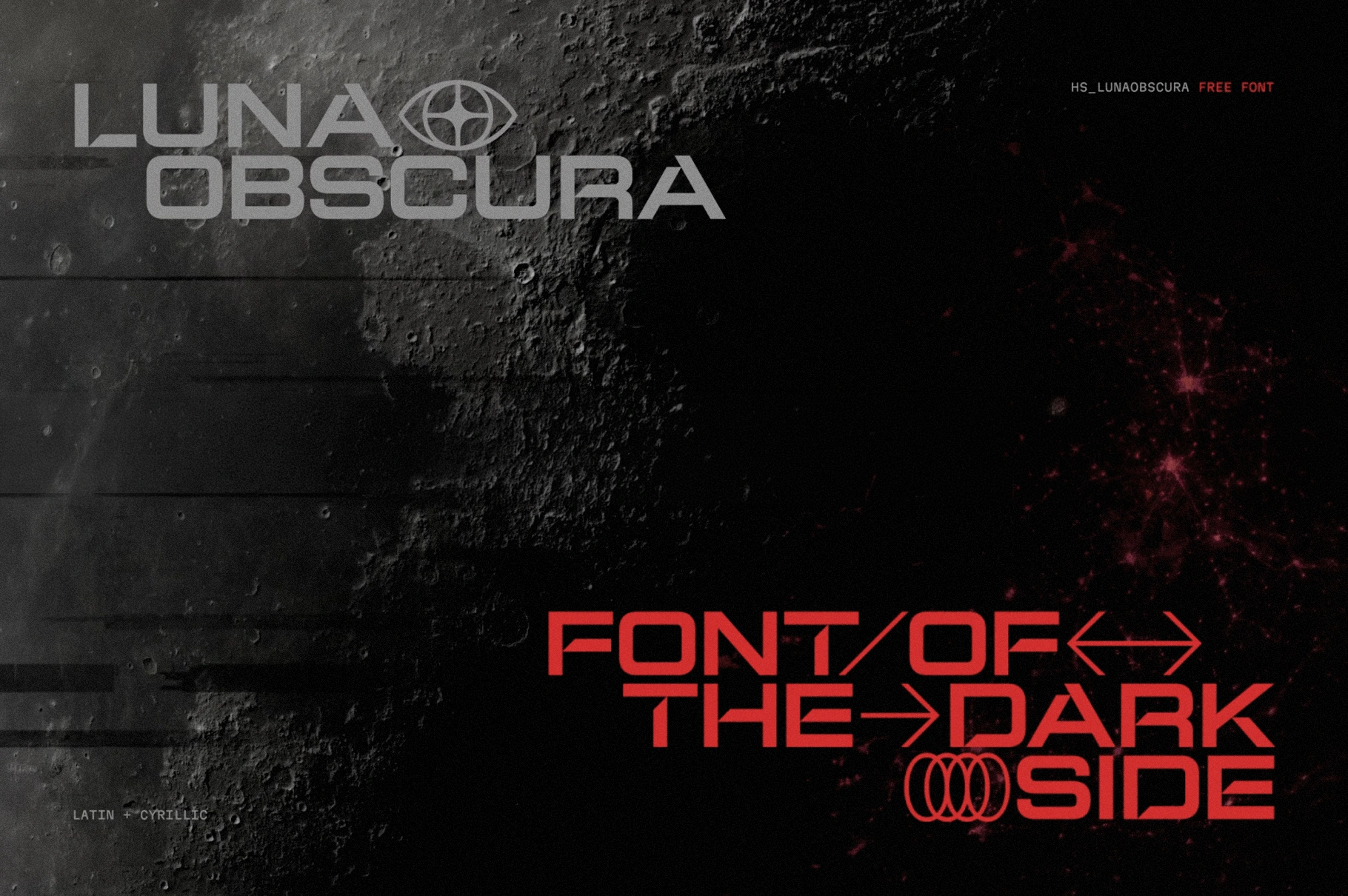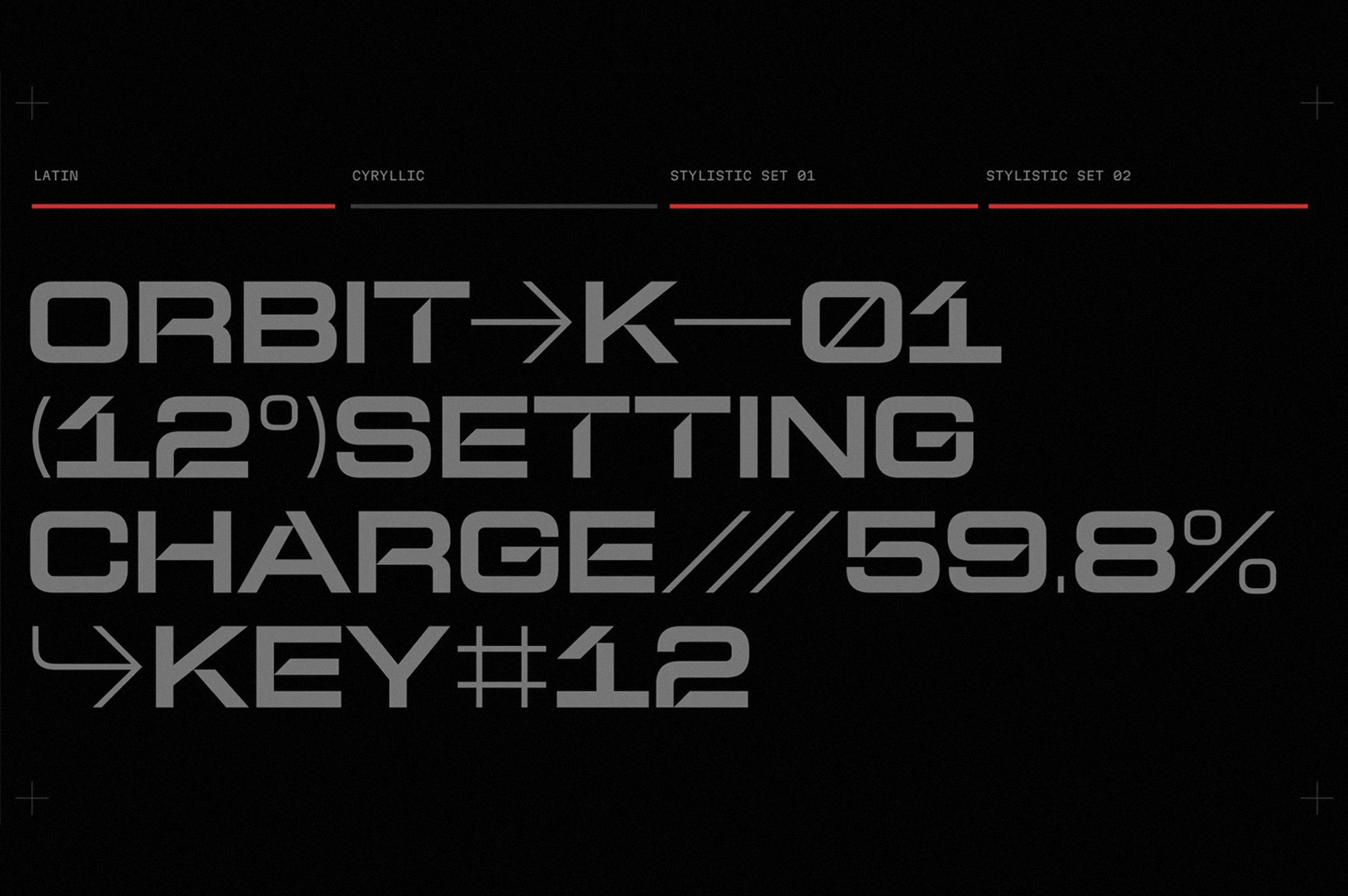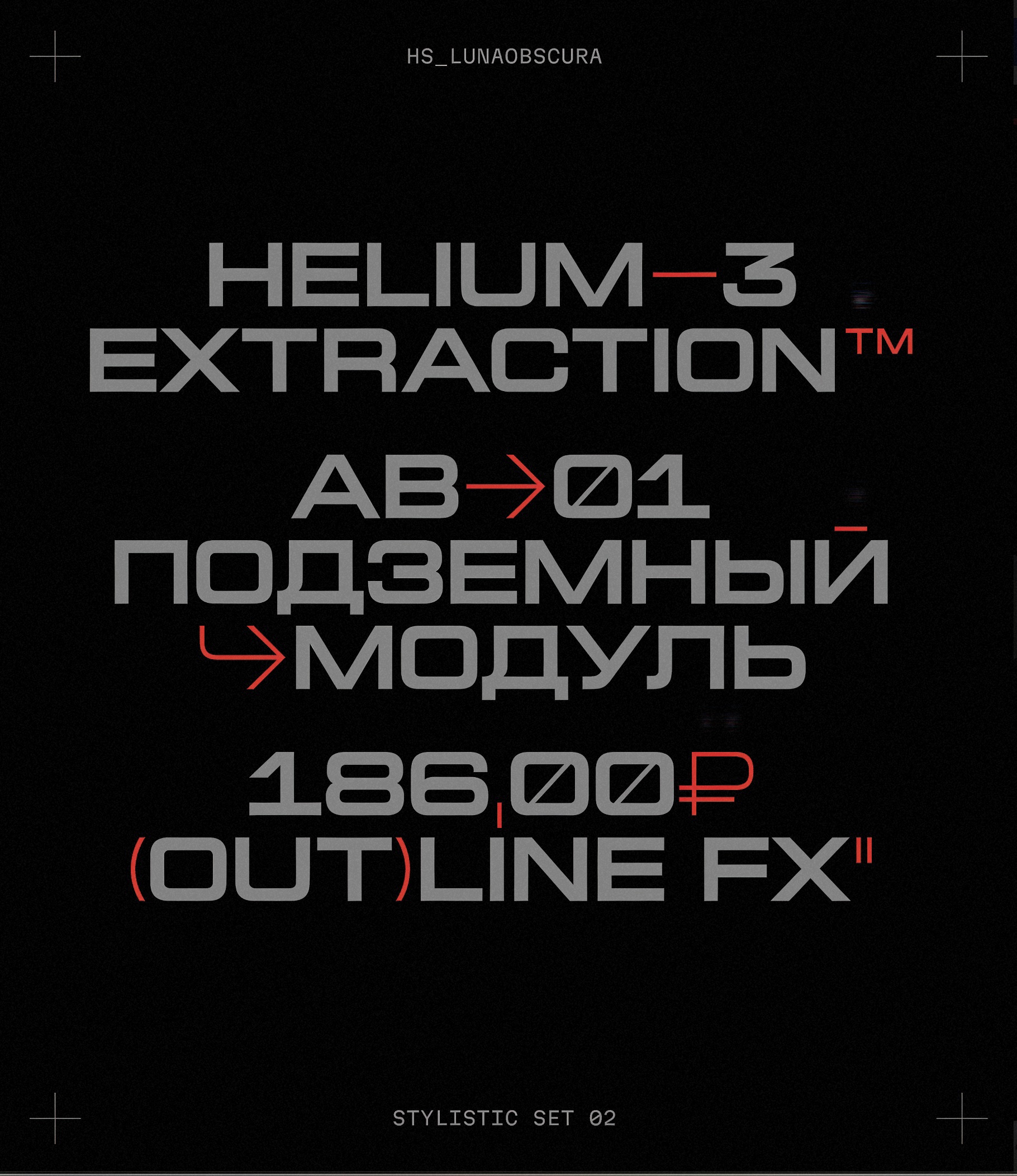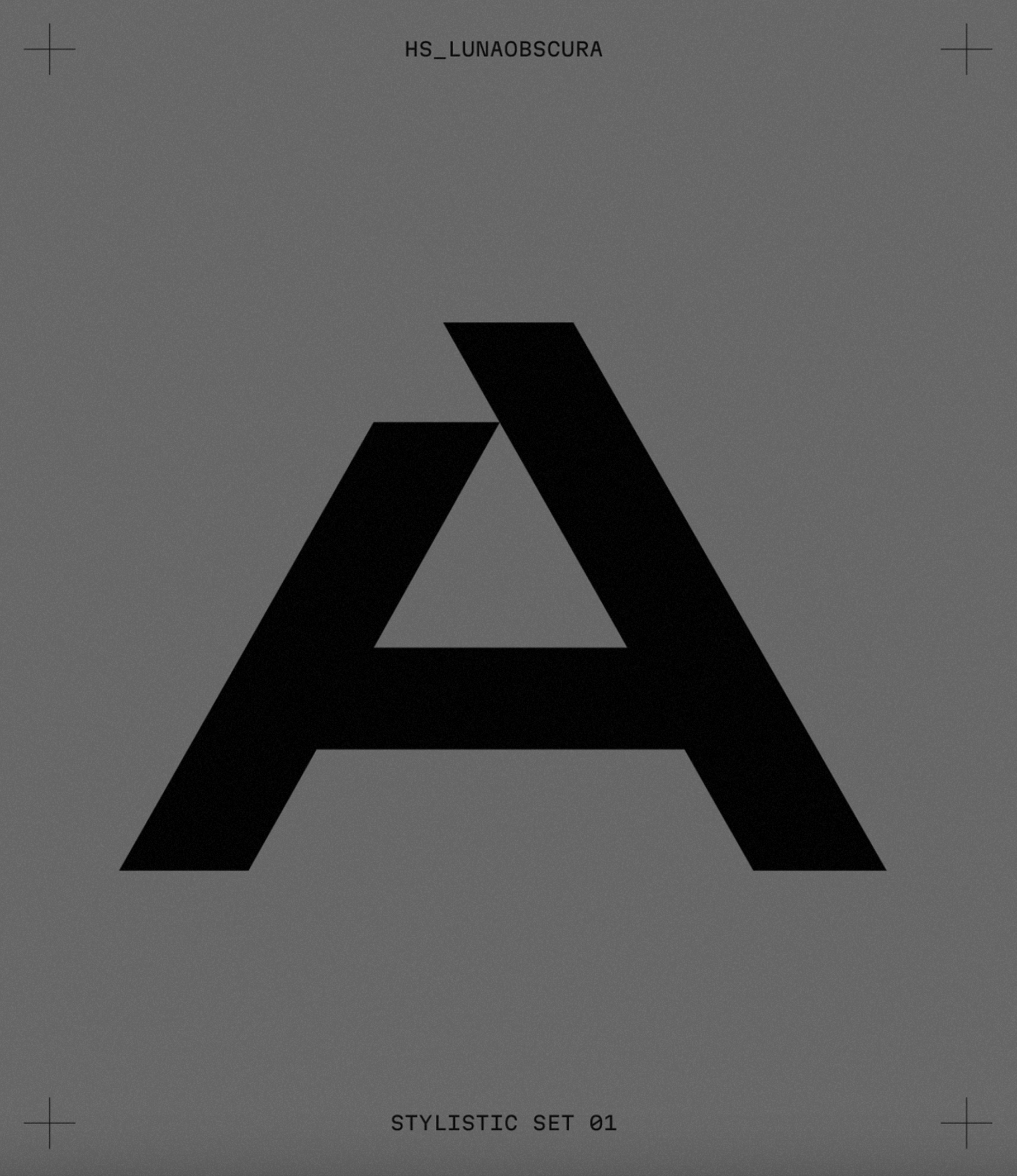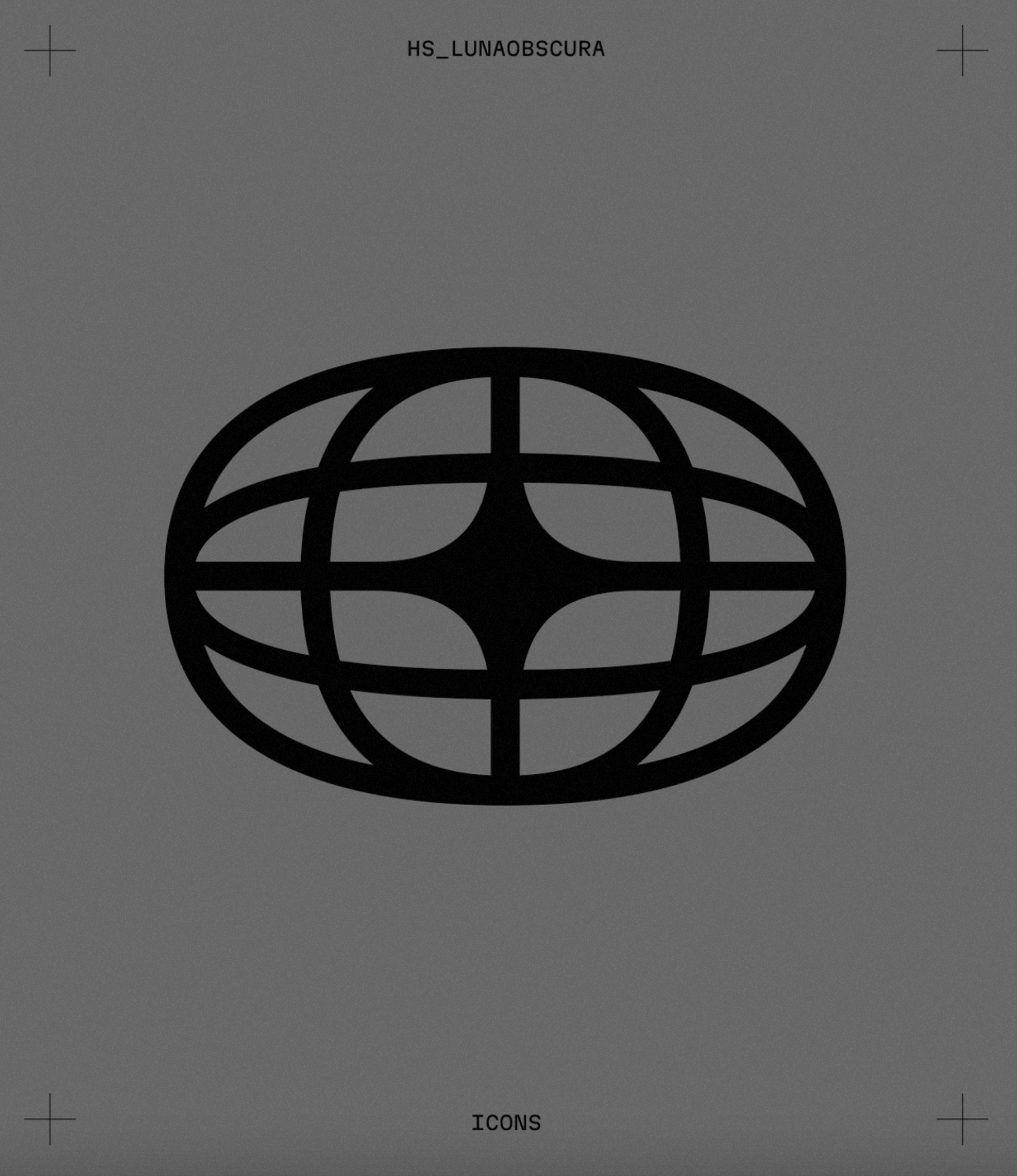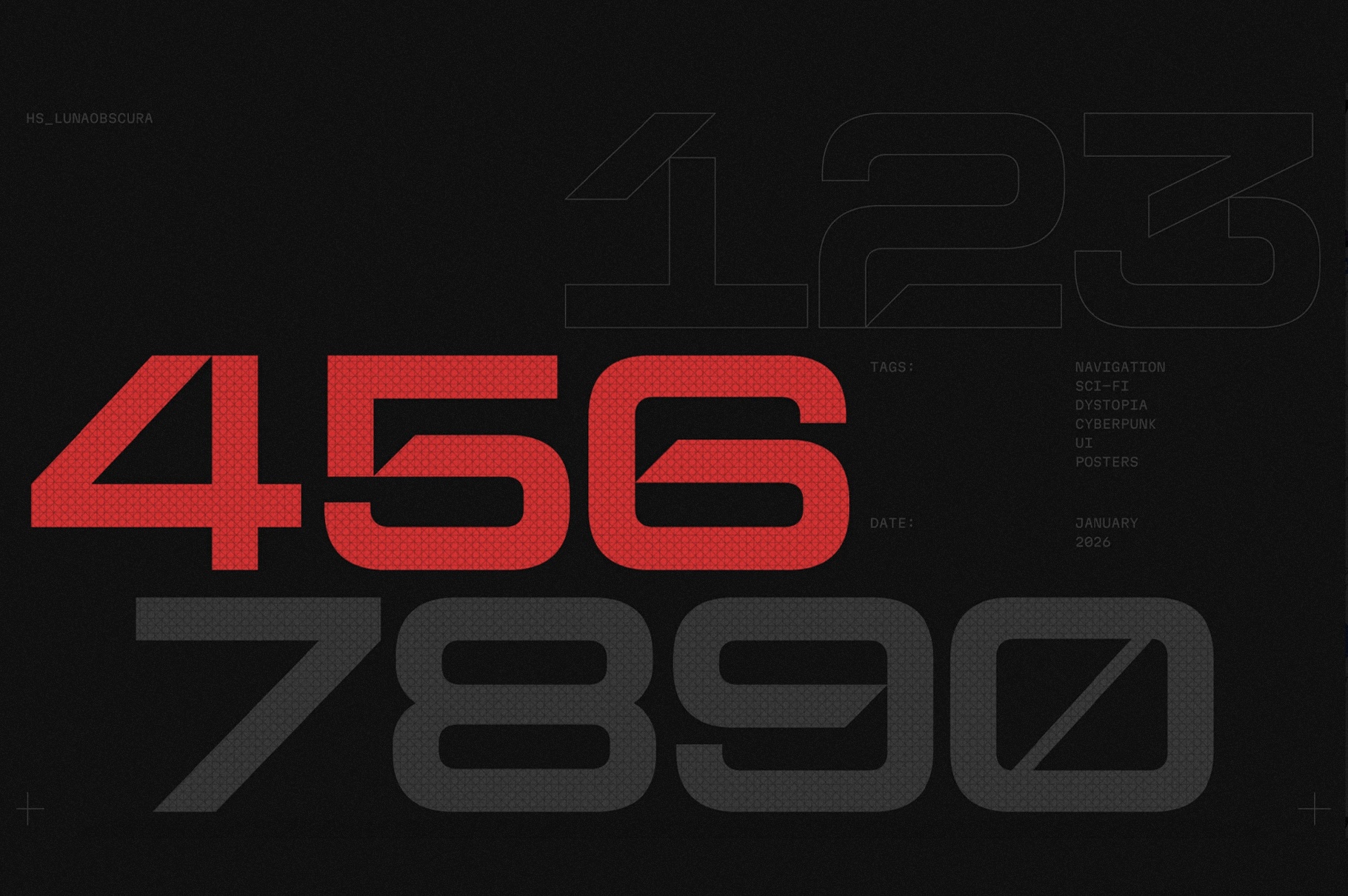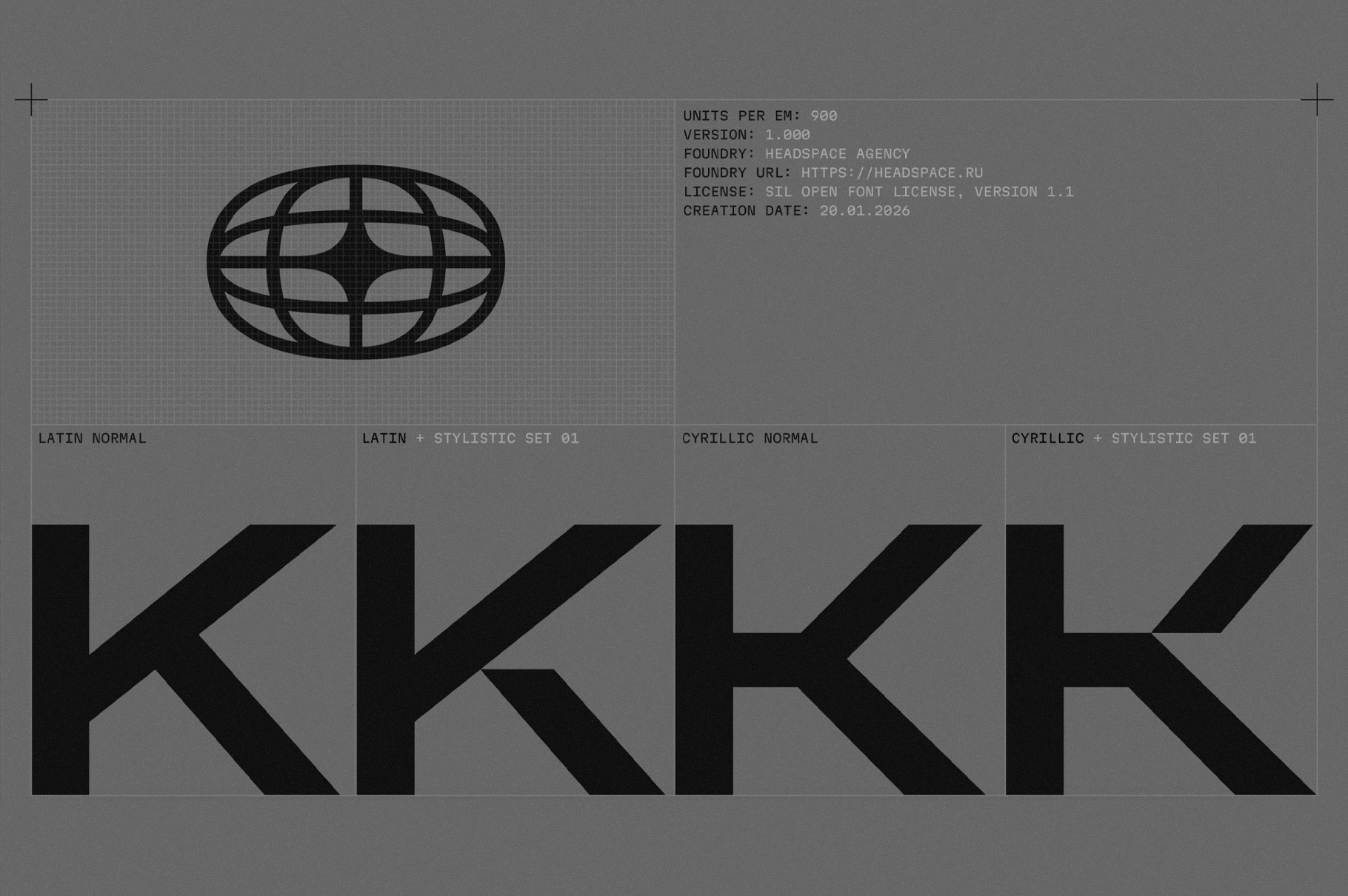
LunaObscura Font
HS_LunaObscura
LunaObscura has the hard-edged poise of Soviet space-race graphics, with angular forms reminiscent of sci-fi interface design and cold industrial signage. It suits poster titles, game interfaces, album covers, motion graphics, speculative branding, cyberpunk posters, game menus, exhibition identities, and cinematic title cards.
- uppercase letters;
- numbers, punctuation, dingbats, and symbols;
- multilingual support across basic Latin and Cyrillic scripts.